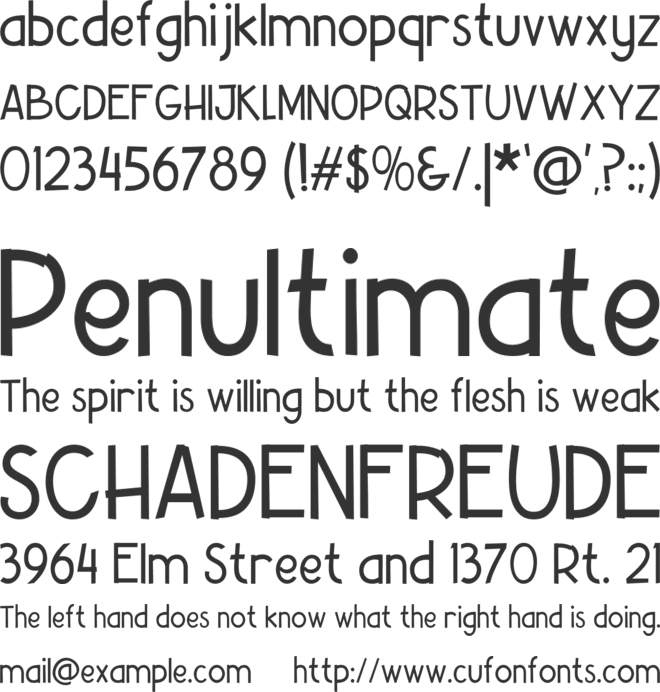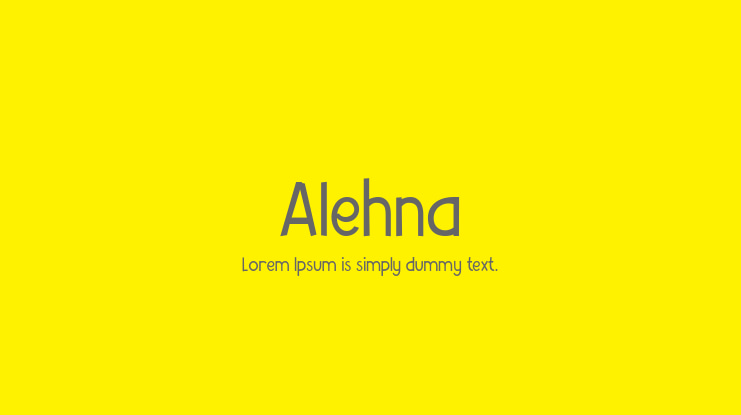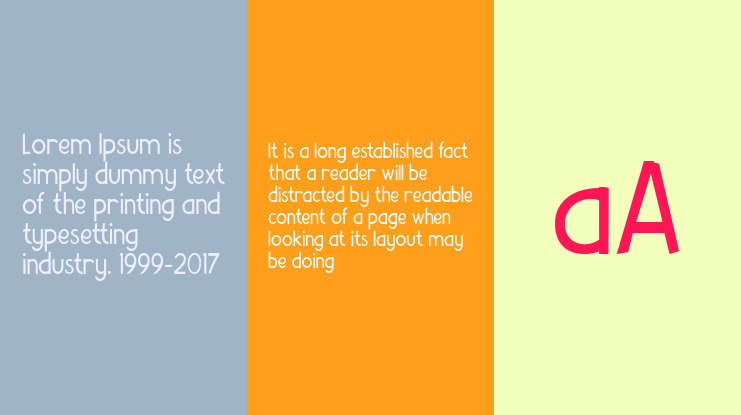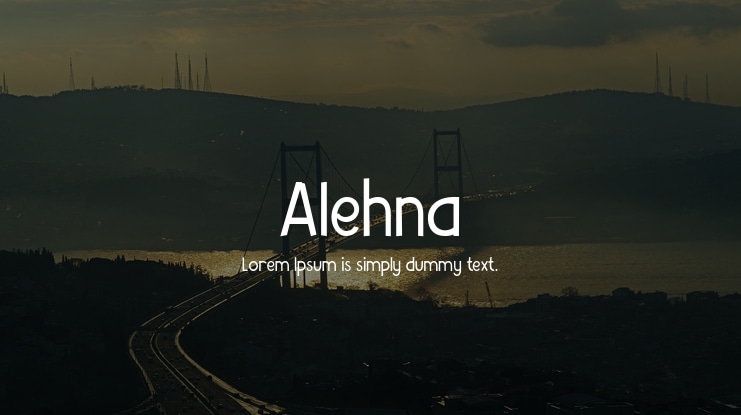
Alehna Font
Alehna is A Whimsical Display Playful Font. This typeface is have a playful and casual look, suitable to use for headline, title, logo, book or magazine cover title, or anything related with fun themed or casual design project.
Features:
- Regular style
- Bold Style
- Slant Style
- Rounded Style
- Outline Style
- Alternate + Ligatures
- Multilingual Support